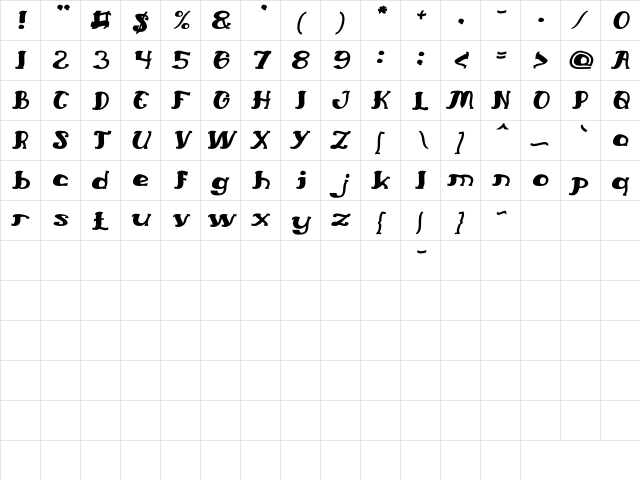
Everlasting Song Italic
Design Context for Everlasting Song Typeface
Everlasting Song is a composed and adaptable typeface that performs quietly and consistently across a wide range of design contexts. The slanted form adds forward momentum and visual energy.
Pro Tip: Try Everlasting Song for annotation and caption copy alongside an upright companion — the contrast in angle creates a dynamic but ordered typographic system.